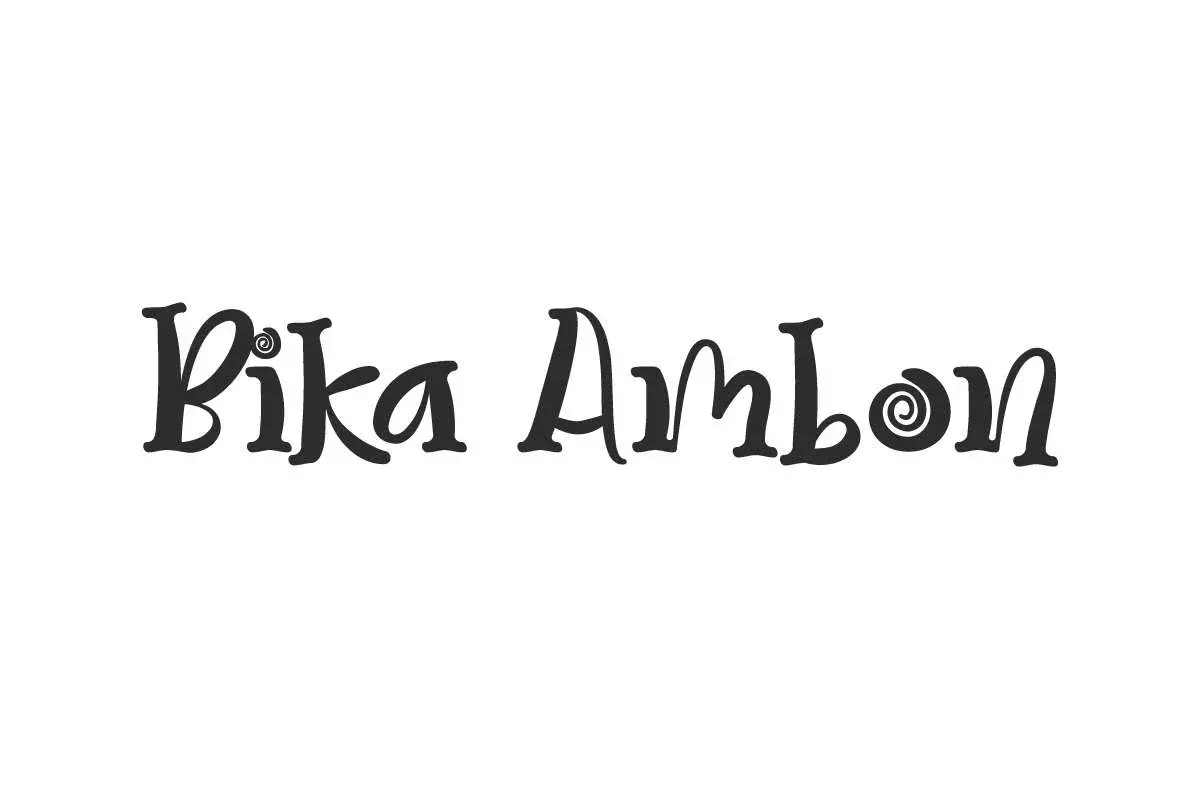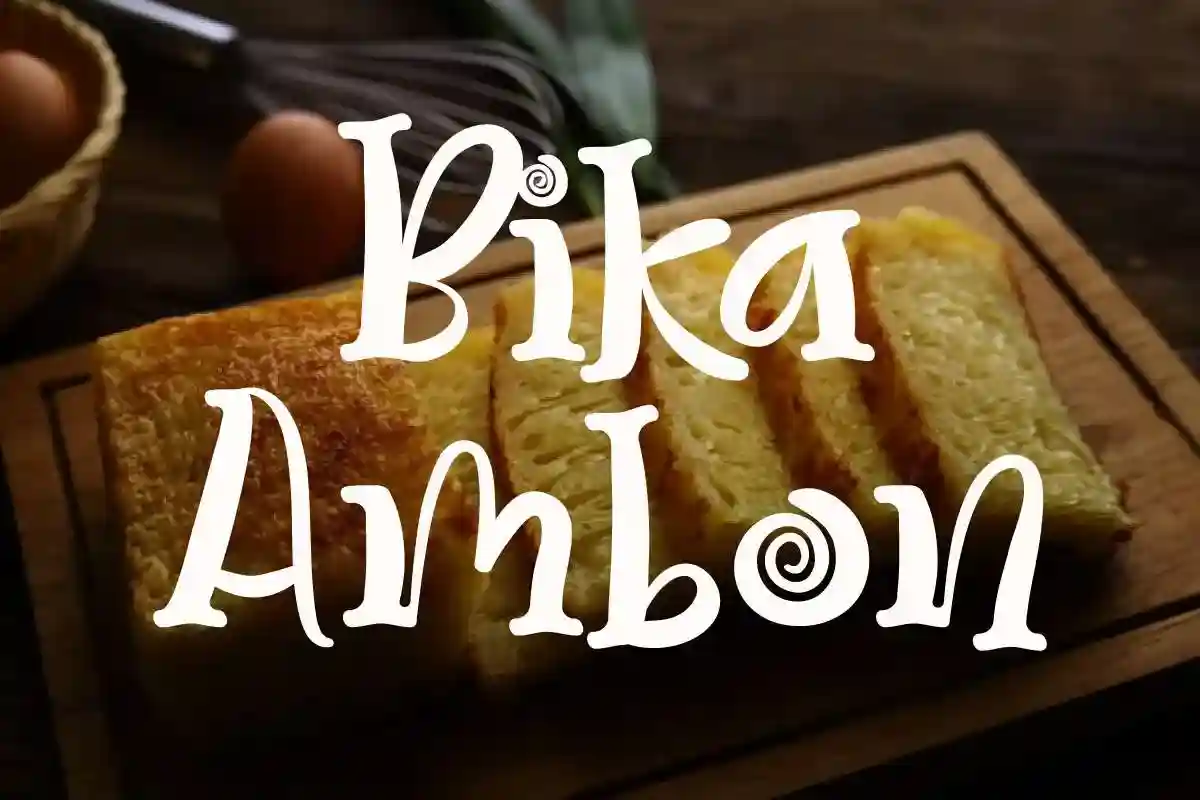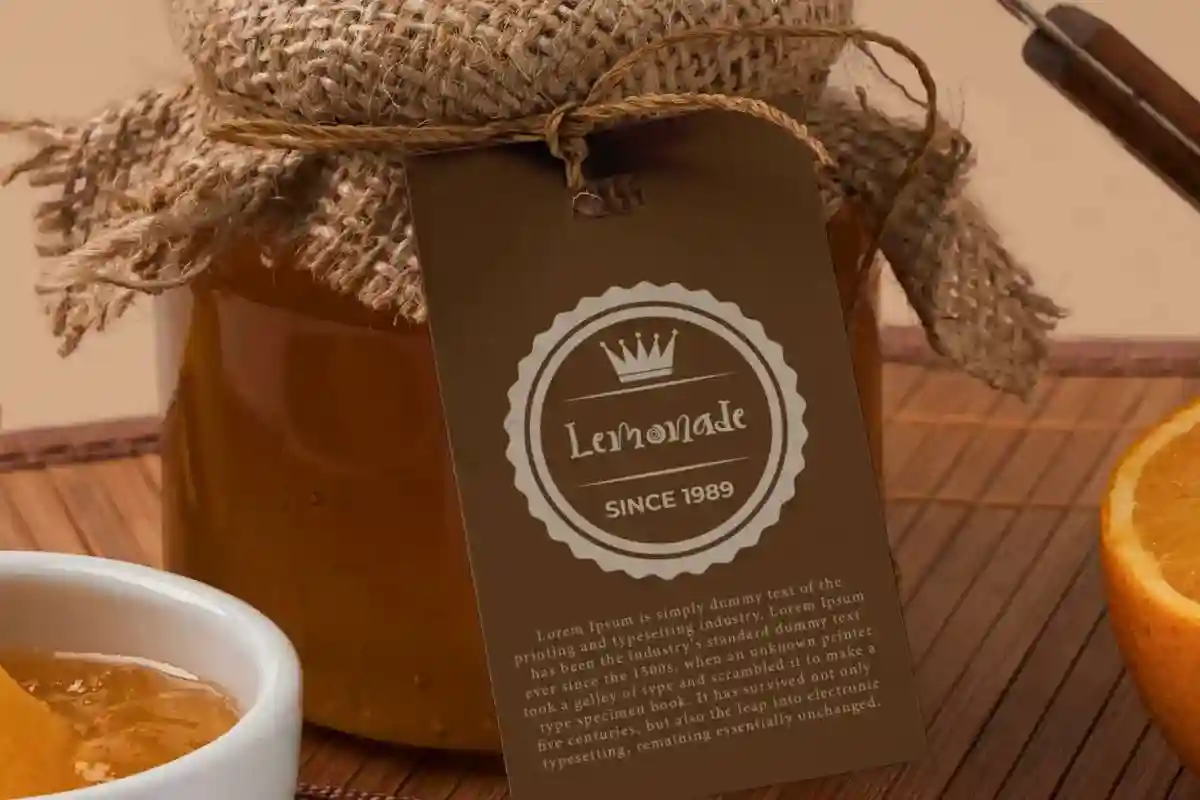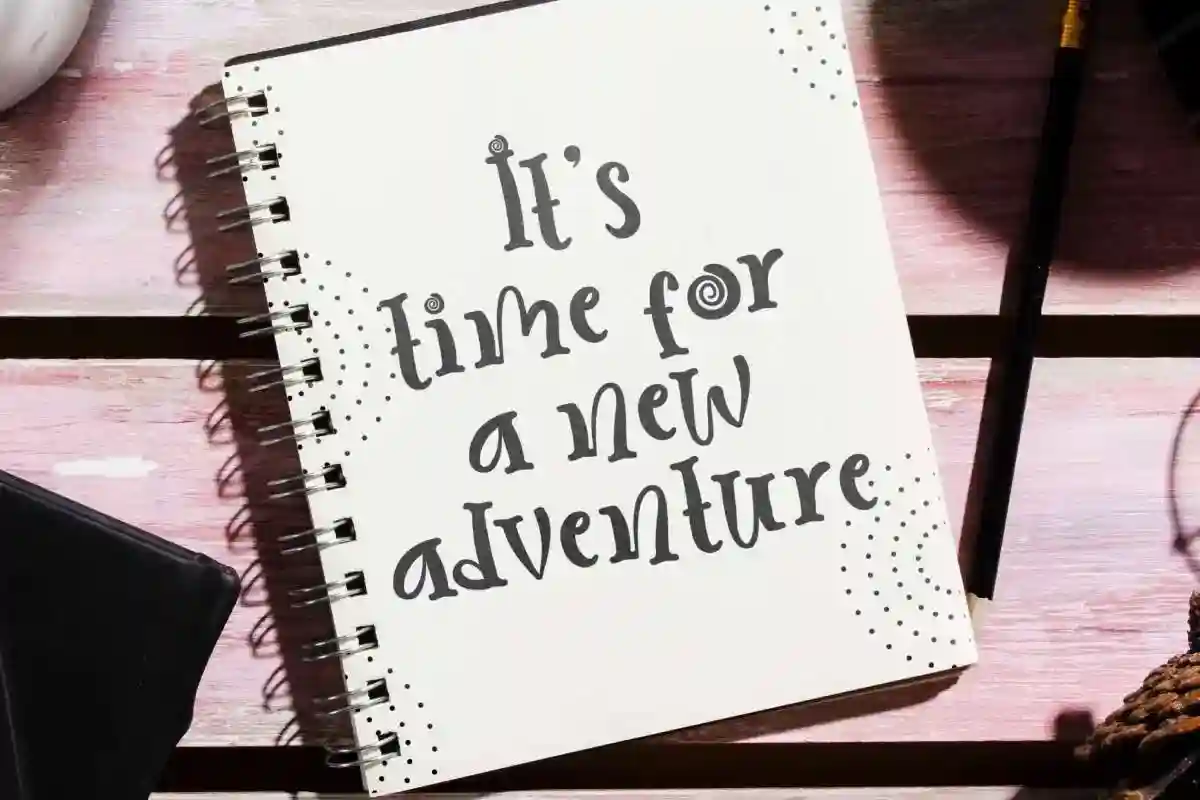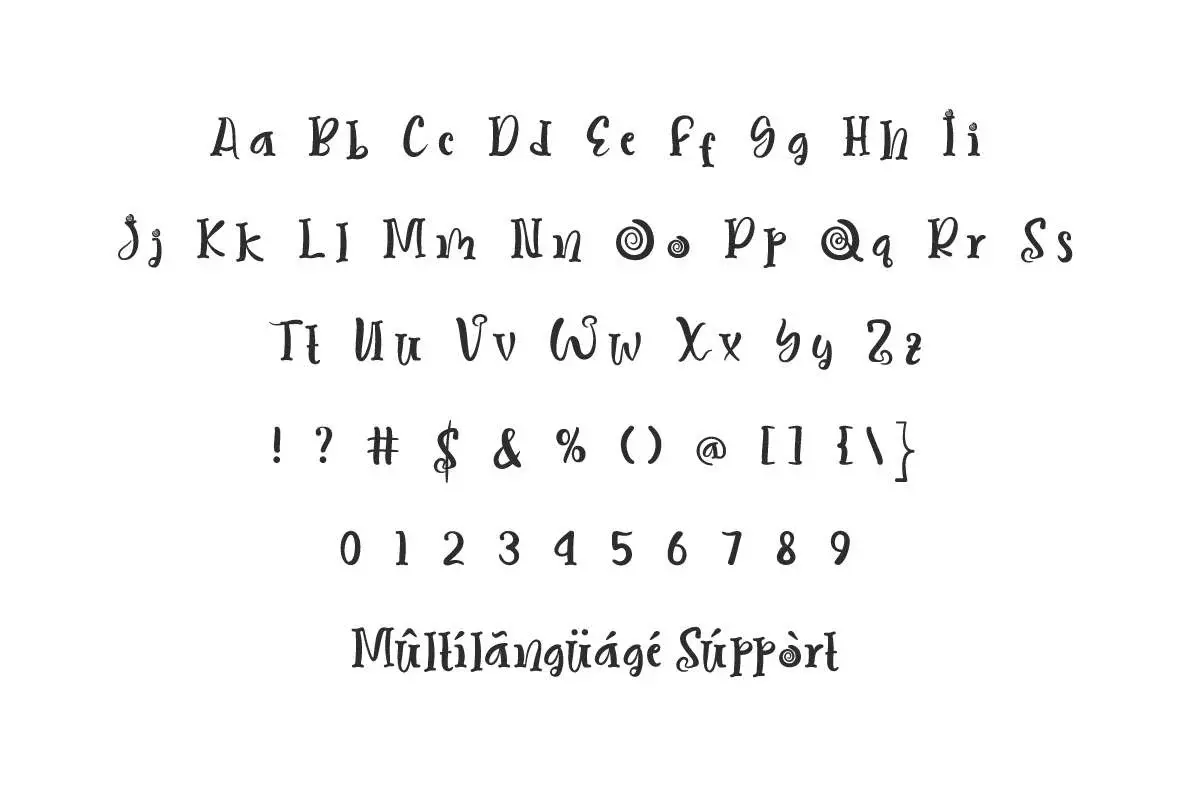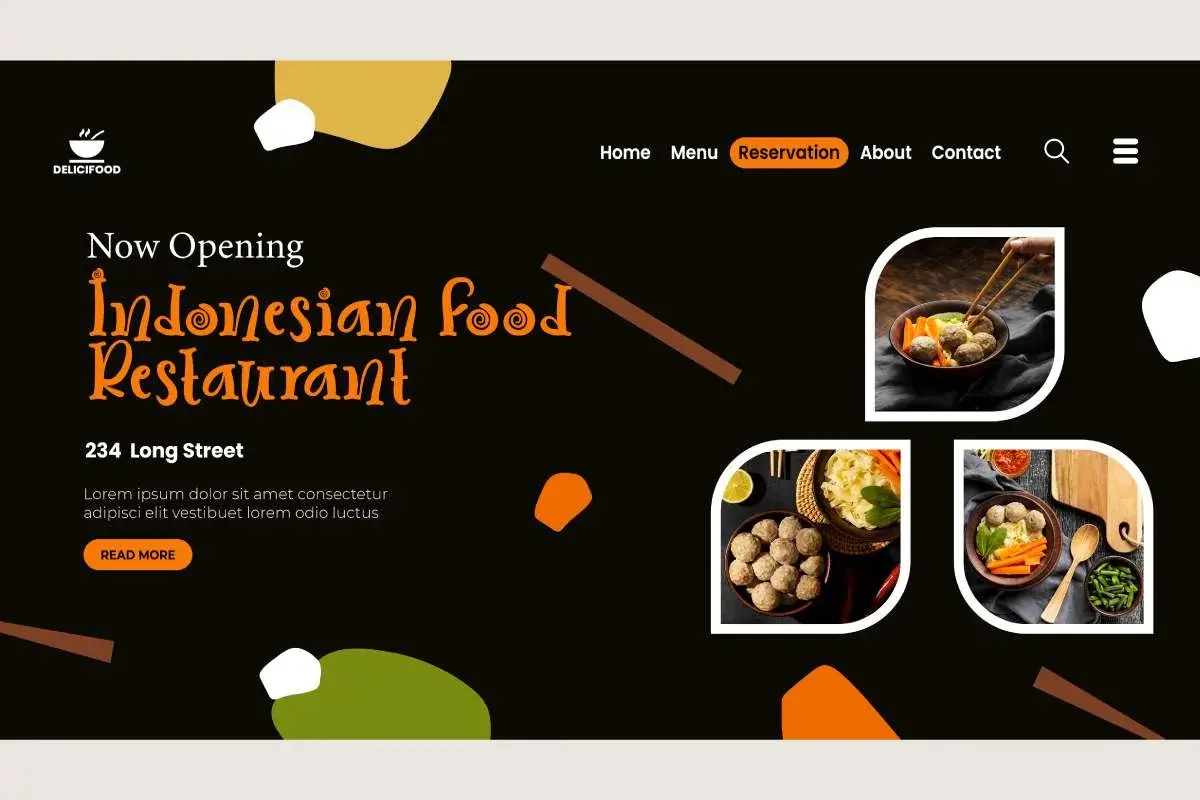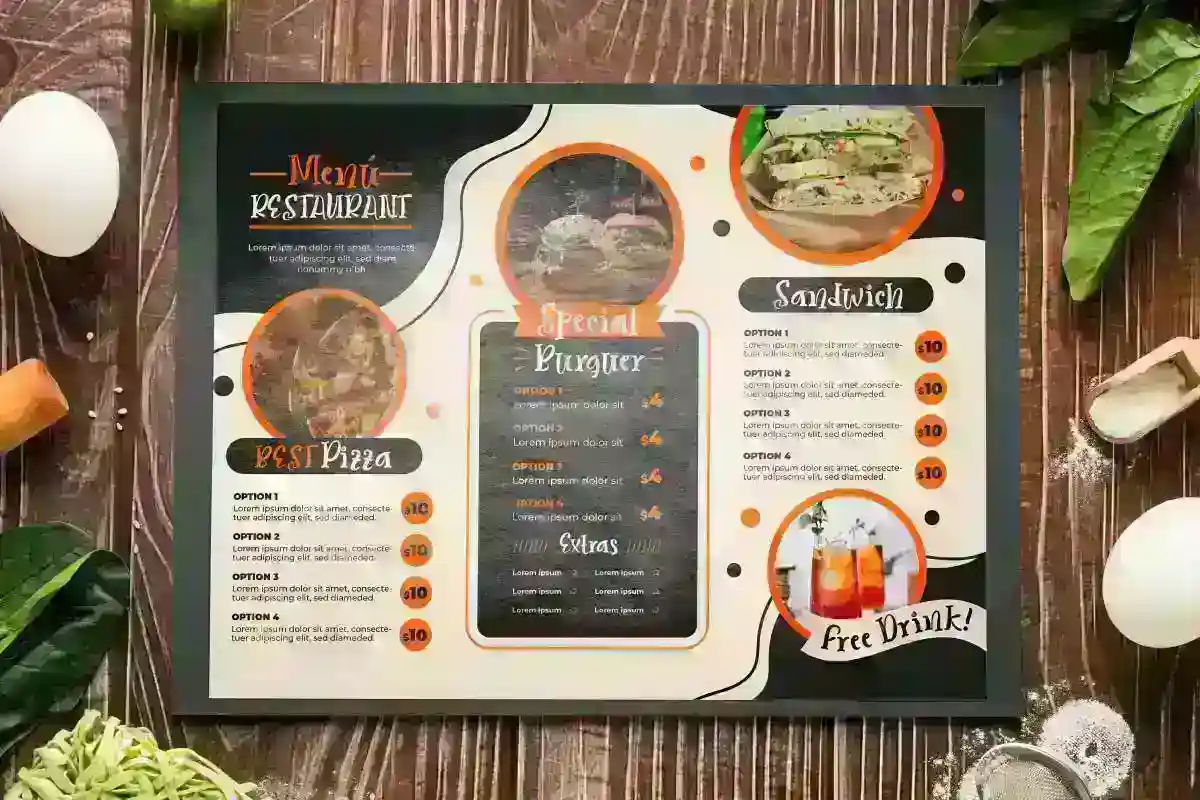
Bika Ambon Font is a fancy playful display font inspired from sweet delicious traditional snack from Indonesia. This font was made to be perfect for food and beverage brands, restaurant, comics, children related stuff, promotional ads etc.
Bika Ambon Font is a modern fancy display font, what Fancy Font mean here are amazing fonts that easily turn simple text into a unique and stylish font. It will be perfect for your projects, such as billboard, brand logo, brochure, label, menu pamphlet, packaging design, poster, screen print, signage, stationery, sticker, title, website, etc.
Bika Ambon Font includes full set of Uppercase and Lowercase Basic Characters, Number, Punctuation, Symbol. This typeface is inspired by a typical cake from Medan, Indonesia. As well as having a cute look that is as sweet as its name, this font is also different in that it is a mix of handwritten and serif that makes it stand out and work for business industries, such as bakeries and pastries, culinary, gift and souvenirs, restaurant, etc.